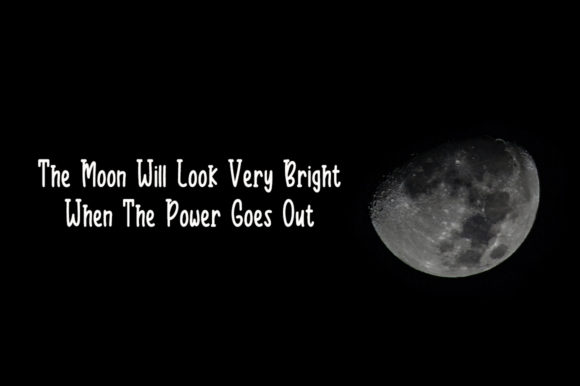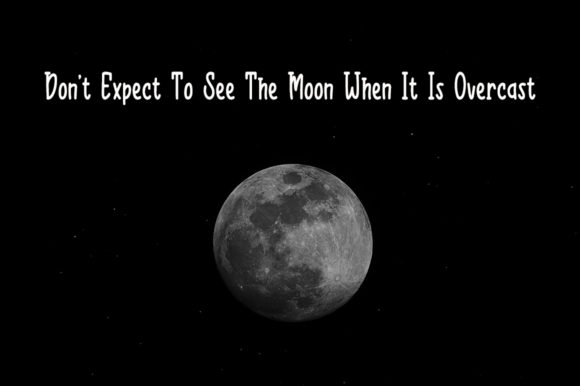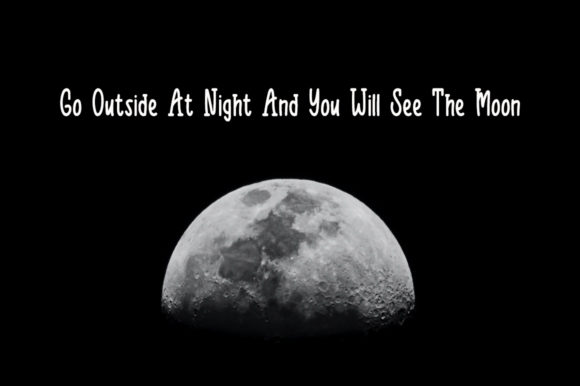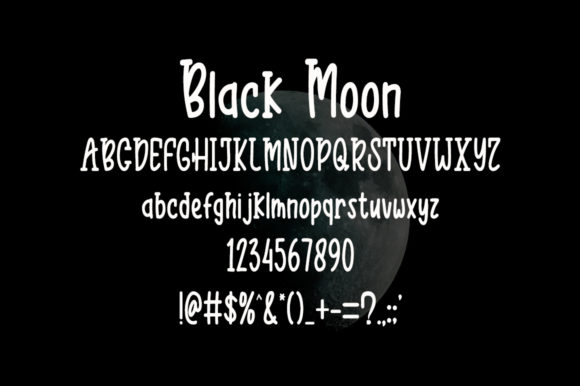
Unleash the Power of Black Moon Font: Elevate Your Designs with a Touch of Elegance
In the realm of typography, few fonts manage to strike a balance between classic sophistication and modern flair. Black Moon Font is one such gem that has captured the hearts of designers and crafters alike. Inspired by the timeless beauty of classic typography, Black Moon brings its own unique style to the table, making it an excellent choice for a wide range of design projects.
The Birth of Black Moon Font
Black Moon Font is a fantastic handwritten font that has been carefully crafted to make a statement. Its origins are rooted in the desire to create a typeface that not only pays homage to traditional typography but also pushes the boundaries of modern design. The result is a font that exudes elegance, sophistication, and a touch of whimsy.
One of the standout features of Black Moon Font is its incredible versatility. This font is best suited for headlines of all sizes, from large-scale titles to smaller, more intimate text. Additionally, it’s perfect for blocks of text that require both maximum and minimum variations, making it an excellent choice for designers who need a font that can adapt to different design requirements.
Whether you’re working on a web design project, creating print materials, or crafting moving images, Black Moon Font is an excellent choice. Its unique style and classic roots make it a chameleon of a font, capable of fitting seamlessly into various design contexts. Here are some of the many design possibilities where Black Moon Font shines:
- Web Design: Use Black Moon Font to create stunning website headers, titles, and even body text. Its readability and style make it perfect for digital platforms.
- Print Design: From business cards to billboards, Black Moon Font is an excellent choice for any print project. Its elegance and sophistication make it perfect for luxury brands, while its whimsy and playfulness suit more creative and artistic endeavors.
- Moving Images: Black Moon Font is also well-suited for video projects, such as title sequences, animations, and even social media content. Its unique style and classic roots make it a great choice for creating engaging and memorable visuals.
Why Choose Black Moon Font?
With so many fonts available, why choose Black Moon Font? Here are a few compelling reasons:
- Unique Style: Black Moon Font offers a distinctive style that’s both classic and modern. Its unique flair sets it apart from more traditional fonts, making it perfect for designers who want to make a statement.
- Readability: Despite its elegant and sophisticated appearance, Black Moon Font is highly readable, even at smaller sizes. This makes it perfect for body text and longer blocks of text.
- Versatility: As mentioned earlier, Black Moon Font is incredibly versatile, making it suitable for a wide range of design projects and applications.
Tips for Using Black Moon Font
To get the most out of Black Moon Font, here are a few tips to keep in mind:
- Experiment with Sizes: Black Moon Font looks great at various sizes, from large headlines to smaller body text. Experiment with different sizes to find the perfect balance for your design.
- Play with Colors: Black Moon Font is a versatile font that works well with a range of colors. Experiment with different color schemes to find the perfect combination for your design.
- Mix and Match: Don’t be afraid to mix and match Black Moon Font with other fonts. Its unique style makes it a great choice for pairing with other typefaces to create visual interest and hierarchy.
Black Moon Font is a game-changer for designers and crafters looking to elevate their designs with a touch of elegance and sophistication. Its unique style, versatility, and readability make it an excellent choice for a wide range of design projects, from web and print to moving images and beyond. With Black Moon Font, you can unleash your creativity and bring your designs to life in a way that’s both stylish and memorable.